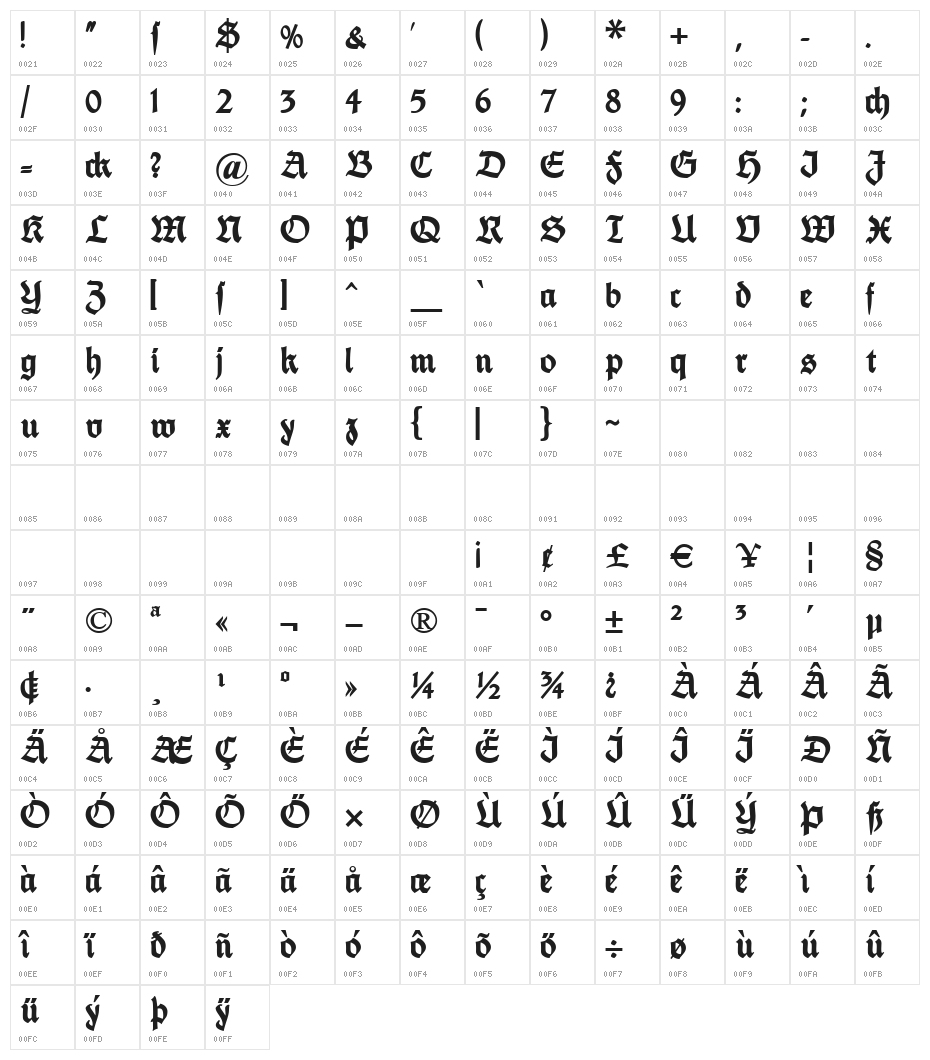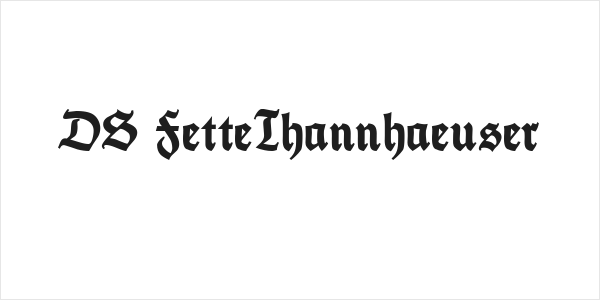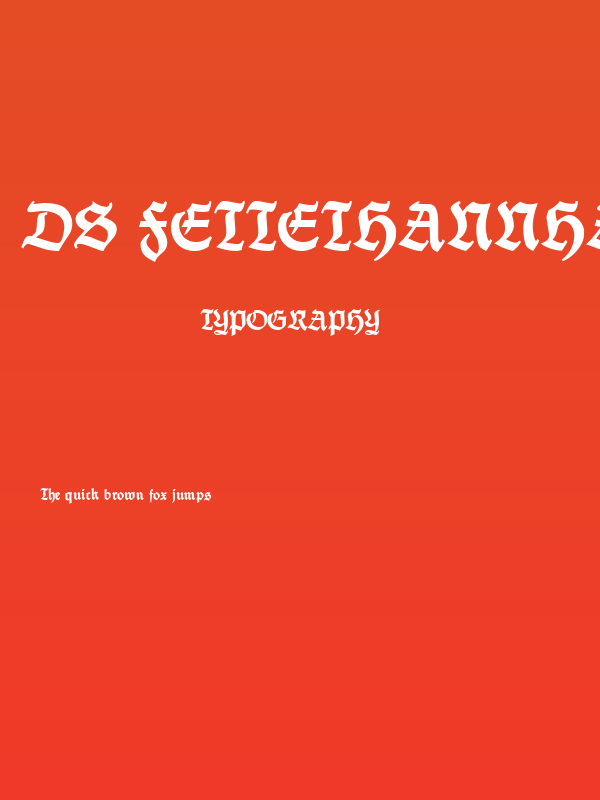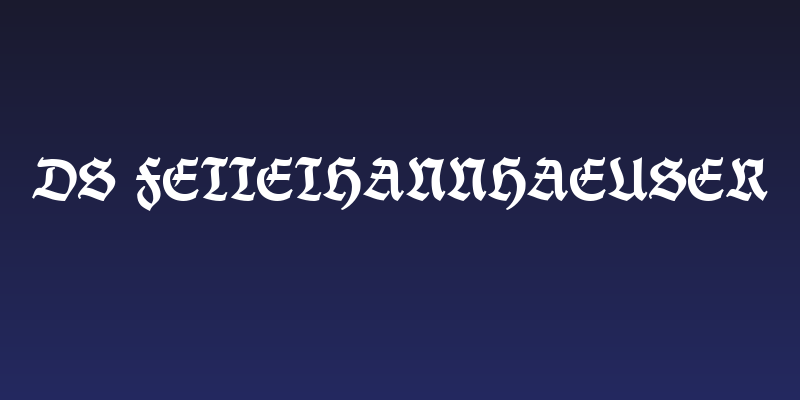
DS FetteThannhaeuser Font
DS FetteThannhaeuser Description
This font features a bold and dramatic style, reminiscent of traditional blackletter typography. The characters are ornate with sharp angles and intricate details, giving it a historical and gothic appearance. The uppercase letters are particularly elaborate, with sweeping curves and pointed serifs that create a sense of grandeur. The lowercase letters maintain the same level of detail, ensuring consistency throughout the typeface. Numbers and special characters are designed to match the overall aesthetic, making it suitable for projects that require a touch of elegance and formality.
| Use Case | Logos, Headlines, Decorative purposes |
| Proposed Projects | Ideal for historical documents, certificates, book covers, and branding that requires a classic or gothic touch. |